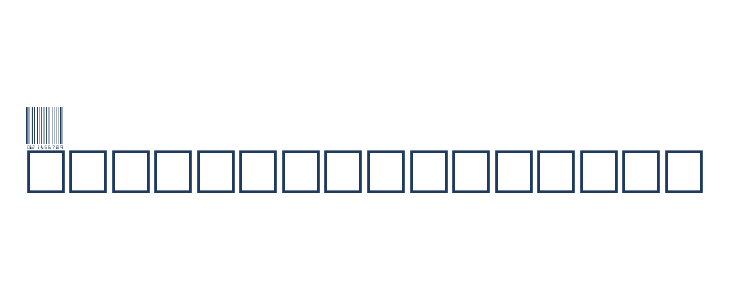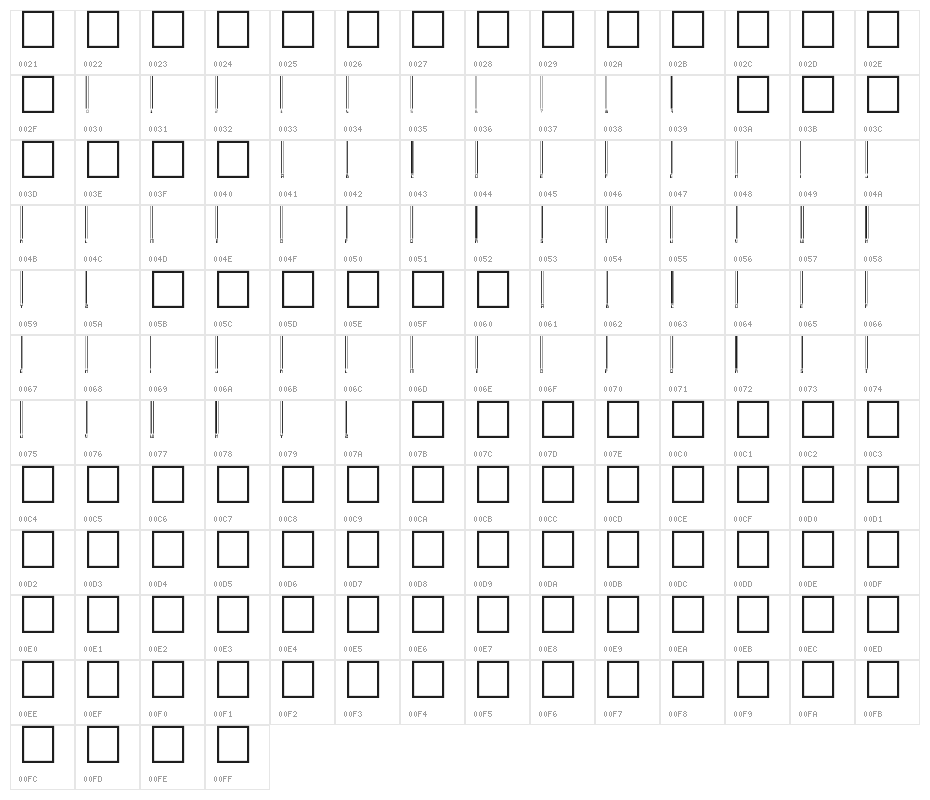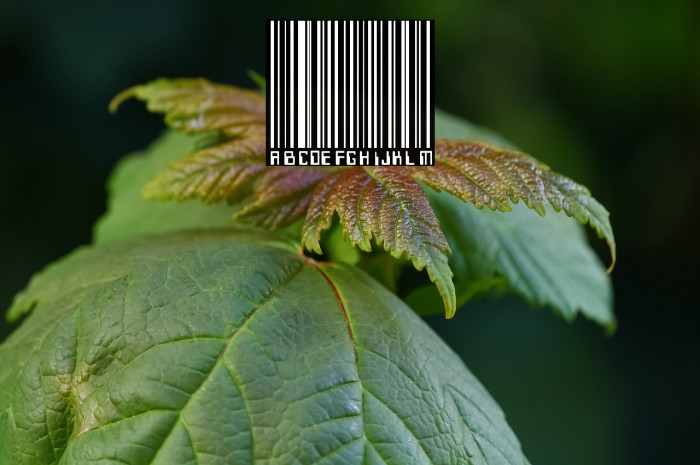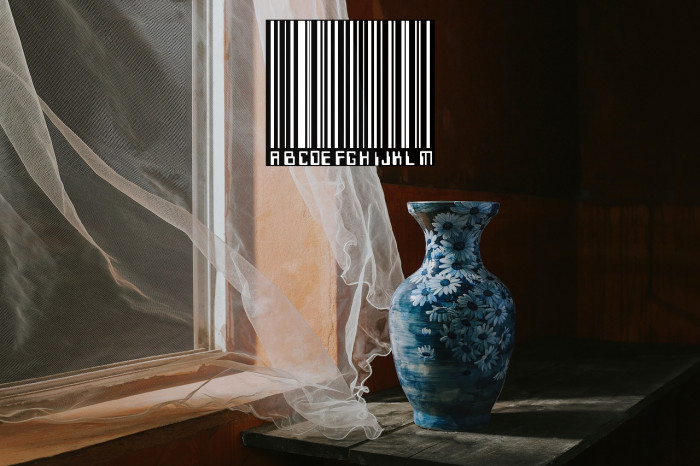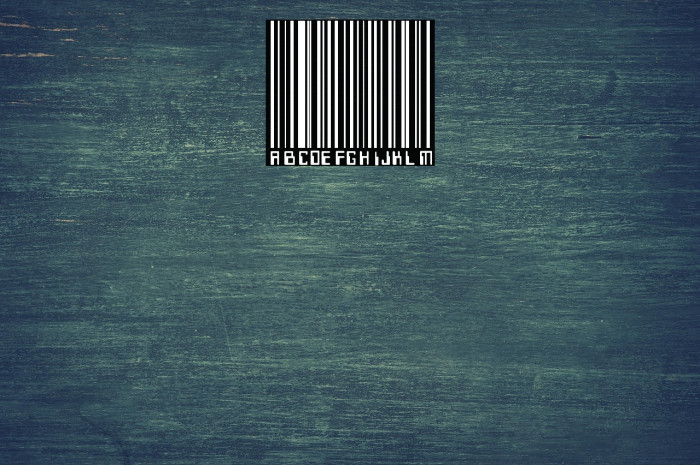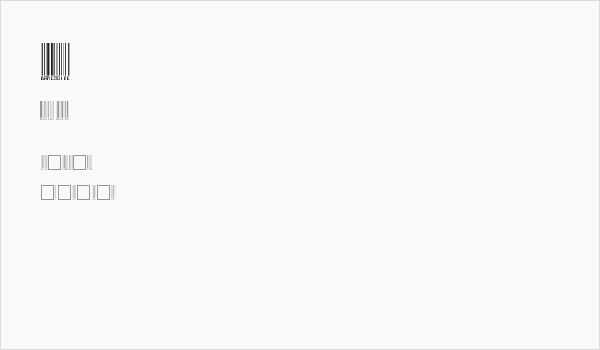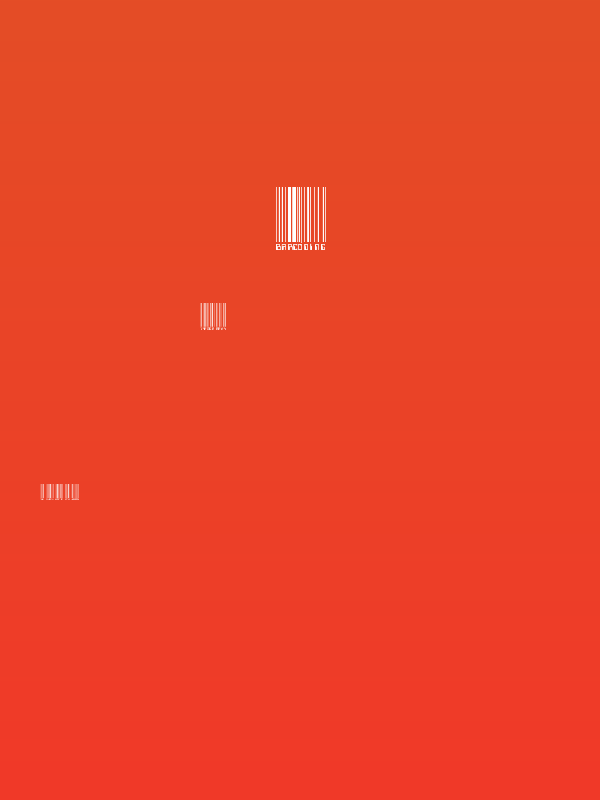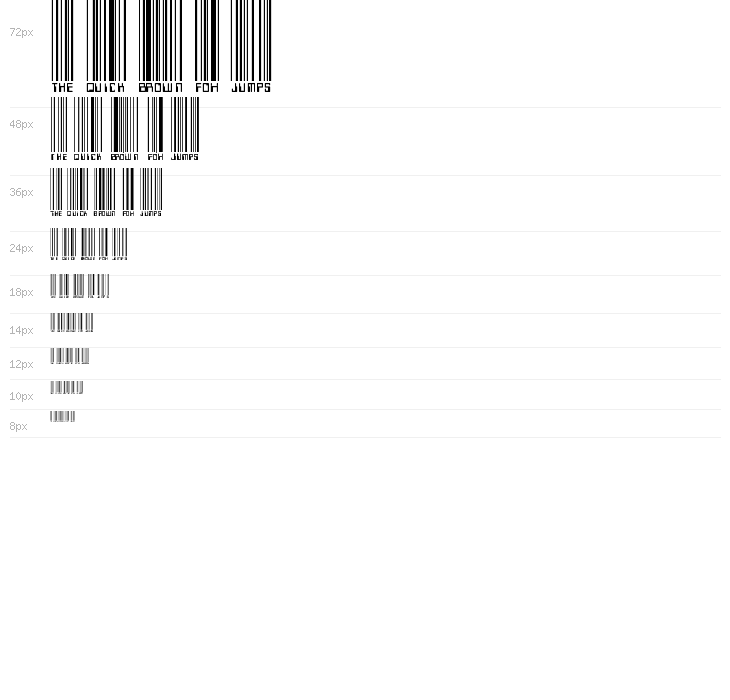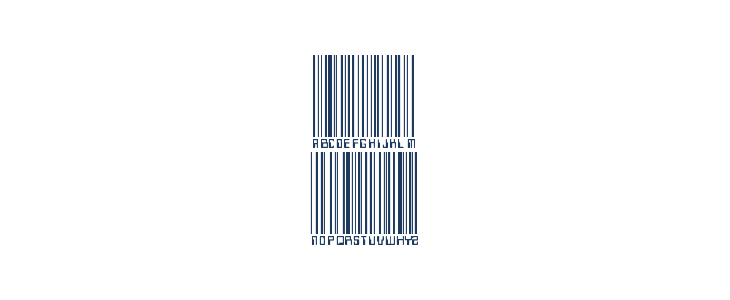
Barcoding Font
Barcoding Description
A barcode-inspired typeface with vertical lines forming each character, resulting in a highly abstract and machine-readable appearance. Characters are constructed from varying thicknesses and spacings of bars, making them resemble traditional barcodes.
| Overall Style | Futuristic, Decorative |
| Use Case | Logos, Posters, Thematic headlines, Event branding |
| Proposed Projects | Product packaging, tech branding, futuristic posters, data visualization, security or authentication graphics. |